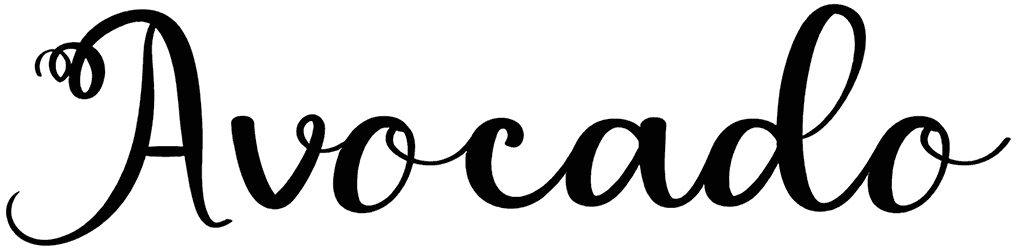
Avocado Font
Avocado is a script font full of features, like its name, which can cure any pain in design. This handwritten font can add a lot of flourish to your digital writings that will be brilliant even when printed.
To emphasize the creative effects of your content and take it to the next level, you can add Avocado characters to the collection. Wedding cards, letterheads, friendly notes, and tattoos are where this font shines.
Avocado is a chic, modern script font. This gentle font will look gorgeous on a variety of design ideas. It will add a joyful and romantic touch to each of your projects!